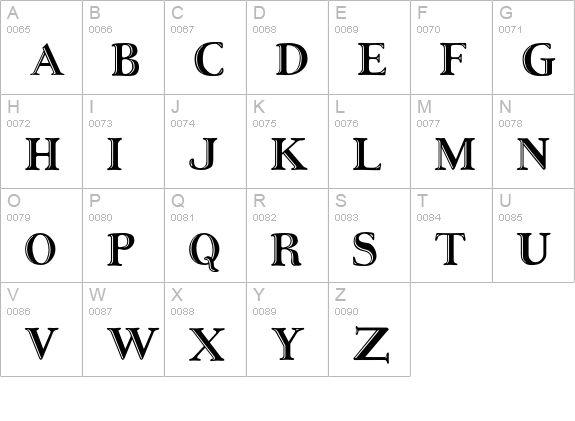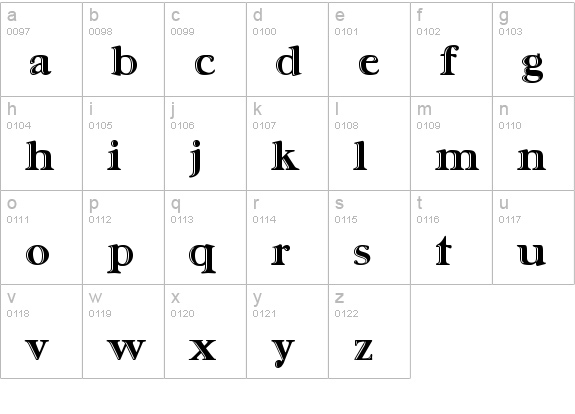
Ursaminor Font Details
Ursaminor font is a beautifully crafted typeface that exudes elegance and sophistication. With its clean lines and subtle curves, this font is perfect for creating stunning designs that demand attention. What sets Ursaminor font apart is not only its aesthetic appeal, but also the fact that it is completely free. Yes, you read that right - this font is freely available to download at FontsMarket.com. You no longer have to worry about breaking the bank to add a touch of class to your projects. Whether you are designing a logo, creating a website, or crafting a poster, Ursaminor font will elevate your work to a whole new level. Its versatility allows it to be used in a variety of contexts, from formal invitations to modern branding. The attention to detail in Ursaminor font is truly remarkable. Each character is meticulously designed, ensuring a harmonious flow and balance. The result is a typeface that stands out from the crowd, making a bold statement without overpowering the overall design. So why wait? Download Ursaminor font today from FontsMarket.com and start enhancing your projects with this stunningly free typeface. Stand out from the crowd and make a lasting impression with the elegance and sophistication of Ursaminor font.